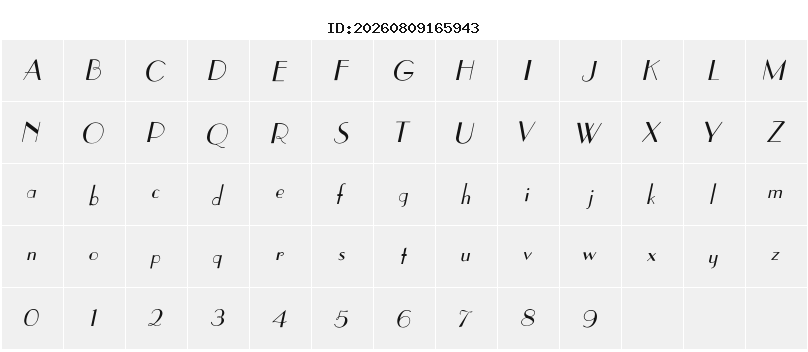
• Font Name: Parisonian-I
• Full Font Name: Parisonian-I
• PostScript Name: Parisonian-I
About Parisonian-I.ttf
Parisonian-I.ttf is a modern, elegant sans-serif font designed for ultimate readability and visual harmony. Perfect for branding, headlines, web design, and print materials.